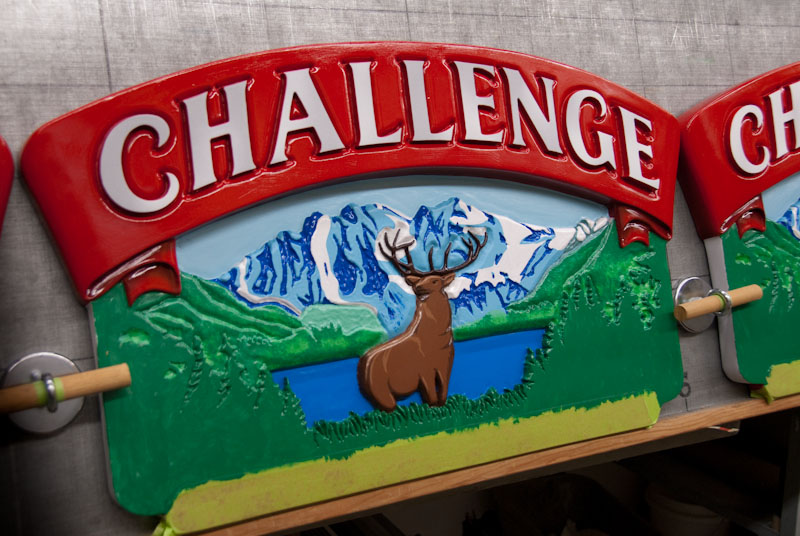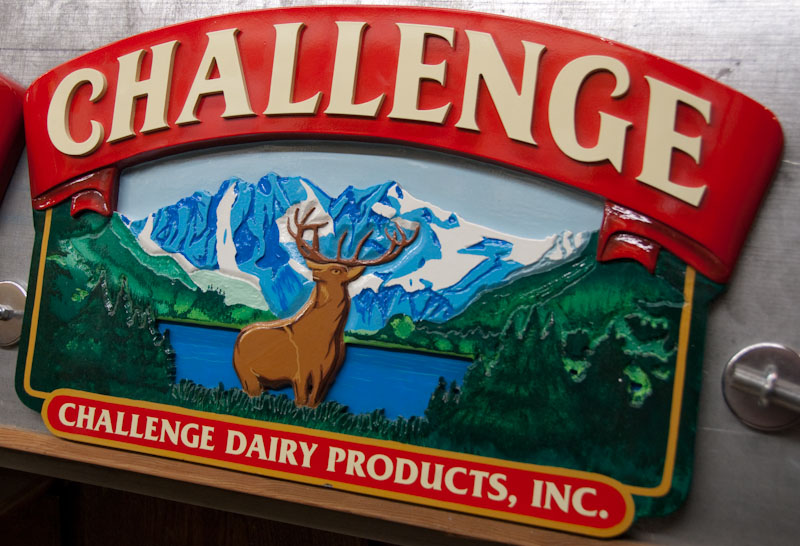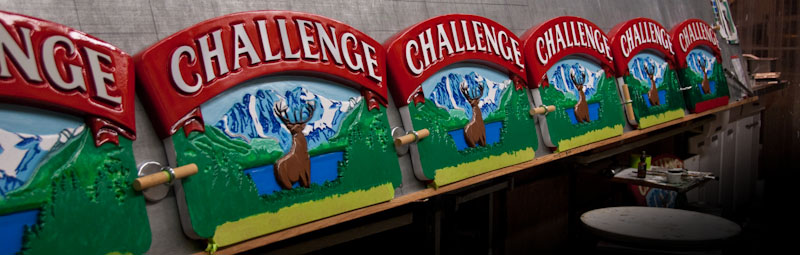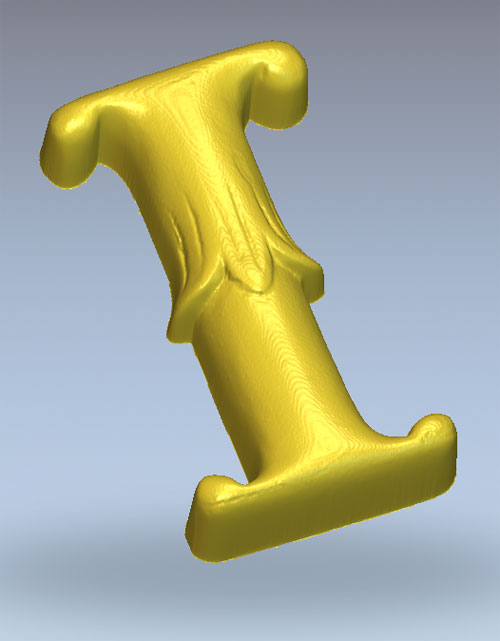
Got Milk?
Routed, hand carved, silicon mold, cast resin, hand painted......
Nice work. Must be something with the name . . . Haha.
That is some very nice work. How will the signs be used? I would think that was an enjoyable project. Enough work to keep your interest, but not enough to bore you. I hope you and the Mrs. are doing well.
So how many do you have to make? What material was the prototype made from? HDU & PVC?
It looks like you are keeping out of trouble in fine style... Nice work Danny!
I'd be pretty bored when I got to the third one... but a guy has got to eat!
Isn't it great to love what you do and do what you love!
The use of these are unknown, most likely the CEO's office, the rest probably top management or top sales office.
The prototype was made from corafoam, letters from PVC. Everything was routed in 3D software. The ribbon was ready for paint off the router, the mountains, trees and deer were detailed by hand. The piece was modeled from original art the company's used for years. The final model was made in the same manner, the only change being the pillowed letters. Finals were cast in FRP. 6 were ordered. We're making samples of other designs for prospective customers with the hope of attracting more business.
If other projects come up, the approach will be different. With the recent purchase of a 3D scanner, objects will be modeled in clay, scanned, cleaned, arranged as needed and routed, so that with some hand clean up, models can be produced in a more efficient manner.
Below are a few examples from the scanner. The ribbon is end is from a clay model, the I from a Spanger letter.
Multiples? That's what employee's are for. My Shop Forman/Woman - Kathy - is my best employee, harshest critic, and head of quality control. Unfortunately she's not in the shop to crack the whip as she used to which I sorely miss. I don't like multiples either, but 1. they pay well, and 2. once set up, someone else does the bulk of the work. Besides Mr. Sawatzky... thinking back over your past projects, the first dozen or so rivets would be fun. Problem is, I've seen hundreds, or more. How do those get done, elves?
the ribbon and 'I'...
carve those with a butter knife did ya?
and it was fine time ya showed us what you're up to Baronian!! Good looking stuff and am thankful I didn't need to do them all by hand......one....at......a......time.